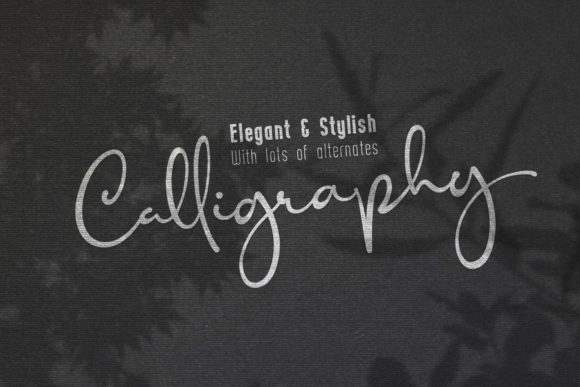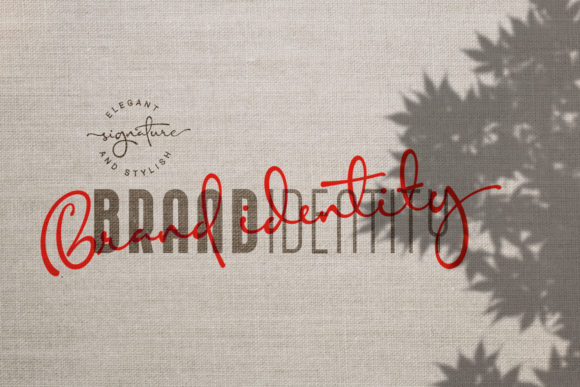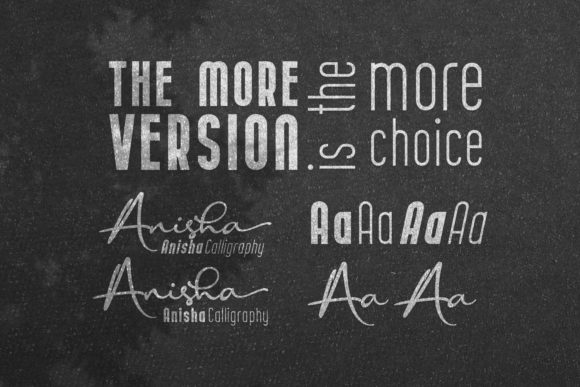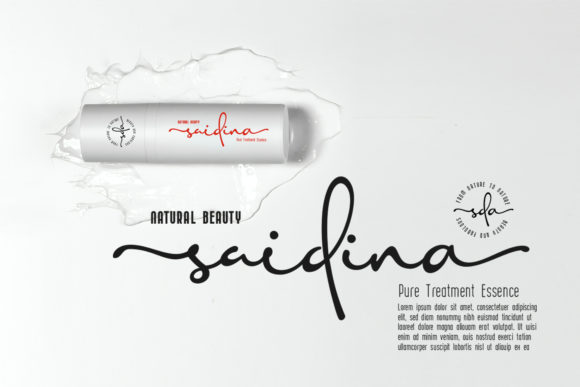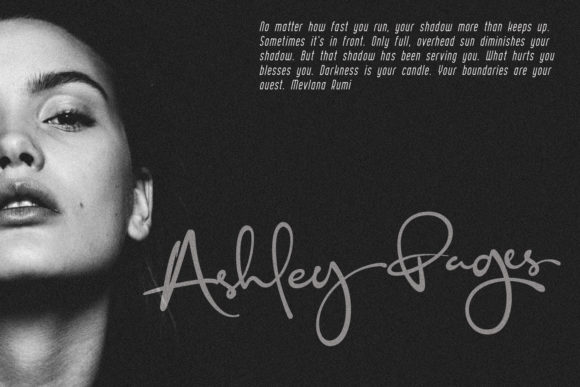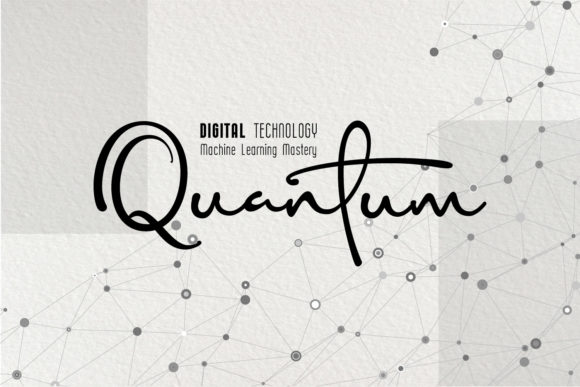
The Perfect Font for Your Next Design Project
There’s something magical about that moment when a design idea clicks – the rush of creativity, the excitement of bringing it to life, and the satisfaction of seeing it all come together. It’s a feeling that never gets old, and one that designers strive to recreate with every new project. For those who’ve experienced this thrill, you know that the right font can make all the difference. Enter the Anisha Font, a stylish display font that’s sure to add a touch of romance and coolness to any design idea.
With its elegant lines and sophisticated feel, the Anisha Font is the perfect choice for designers looking to elevate their designs. Whether you’re working on a branding project, a wedding invitation, or a fashion campaign, this font is sure to bring a unique touch to your work. Its versatility and timeless appeal make it a valuable addition to any designer’s toolkit, and a must-have for anyone looking to take their designs to the next level.
Anisha Font Key Features
- Font Family: Anisha, with multiple styles (Regular, Italic, Bold, Bold Italic)
- Language Support: Comprehensive support for multiple languages, including Latin, Cyrillic, and Devanagari scripts
- Unique Characteristics: Elegant, modern design with subtle flair and sophistication, ideal for luxury brands and high-end applications
Anisha Font Review
When I first laid eyes on the Anisha Font, I was immediately drawn to its unique blend of elegance and playfulness. The ✨ rounded edges and subtle curves give it a friendly, approachable feel that’s perfect for modern branding and design projects.
- ✨ The font’s versatility in both digital and print formats is impressive.
- ✨ Anisha Font’s legibility is excellent, making it easy to read even in smaller sizes.
- ✨ The font’s style is highly customizable, allowing designers to tailor it to their specific needs.
- ⚠️ The font may not be the best choice for highly formal or traditional designs, as it can come across as a bit too playful.
- ⚠️ Some users may find the font’s rounded edges and curves too soft, lacking a sense of edge or sophistication.
- ⚠️ Limited support for certain languages and character sets may be a concern for global design projects.
Overall, the Anisha Font is a solid choice for designers looking to add a touch of modernity and whimsy to their projects. While it may not be suitable for every design style or application, its versatility and customization options make it a valuable addition to any designer’s toolkit.
Common Use Cases for Anisha Font
1. Wedding invitations and stationery
2. Branding and marketing materials
3. Social media graphics and posts
4. Magazine and newspaper layouts
5. Book covers and interior design